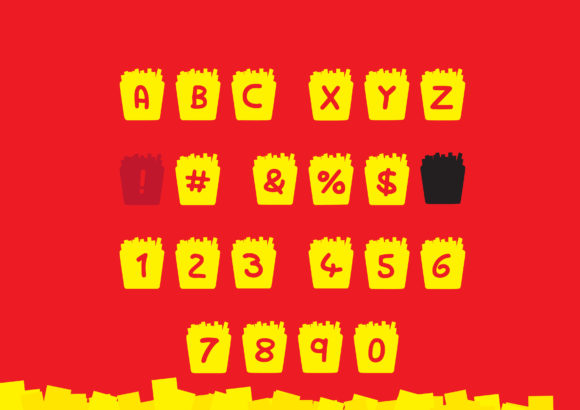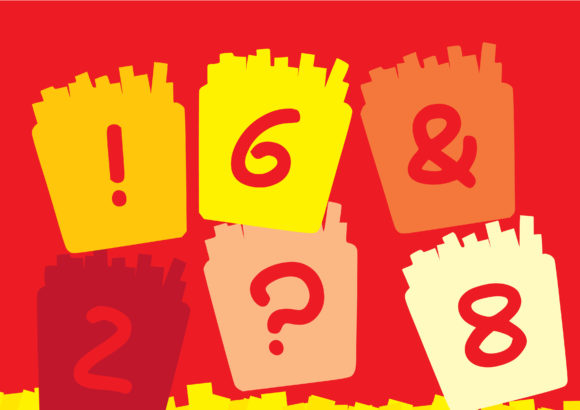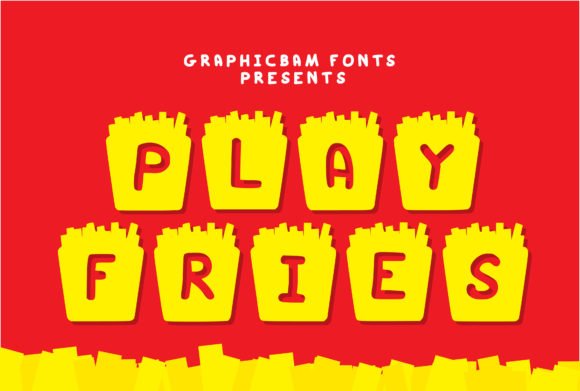
Introduction to Play Fries Font
Play Fries is a lovely decorative font, featuring a set of fries with a playful, child-like vibe.
It embodies trendiness and authenticity and is the perfect choice for any children activity or school project .
Key Features of Play Fries Font
Why Choose Play Fries Font?